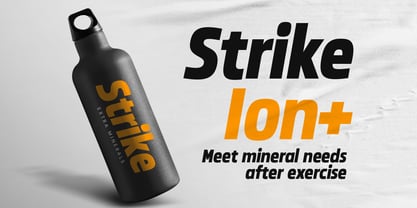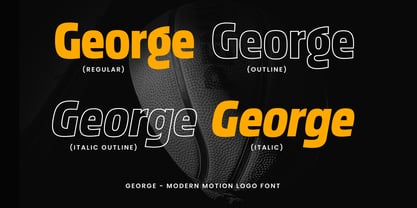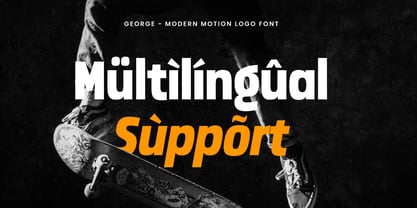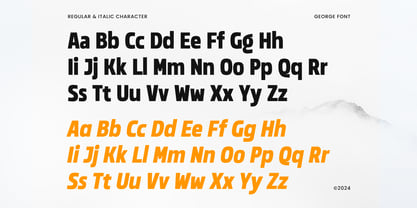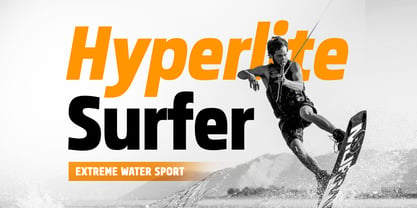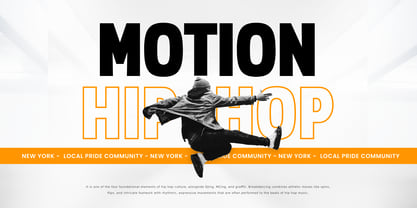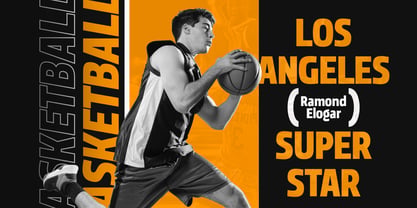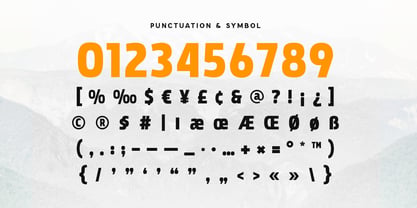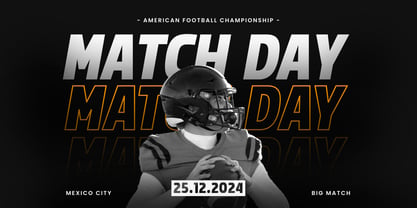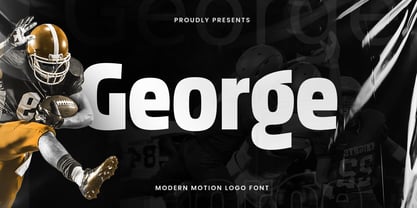
George SS
by Sensatype Studio
The George SS Font Family was designed by Zamroni Hamzah and published by Sensatype Studio. George SS contains 4 styles and family package options. More about this family
George-Modern Motion Logo Font
George is a modern motion logo font, meticulously designed for creators seeking a dynamic and sophisticated edge in their projects. Its sleek and bold aesthetic makes it the perfect choice for modern branding, animated logos, sports designs, and high-energy visuals.
Infused with motion-inspired elements, George stands out with its sharp lines and fluid design, evoking a sense of movement and energy. Whether for digital platforms, sports branding, or high-impact headlines, George seamlessly blends modernity and versatility, elevating your designs to new heights.
George Modern Motion Logo Font Features:
• Dynamic and Modern Character Set
• Punctuation, Numbers, and Symbols
• Uppercase and Lowercase
• Opentype Features
Designers: Zamroni Hamzah
Foundry: Sensatype Studio